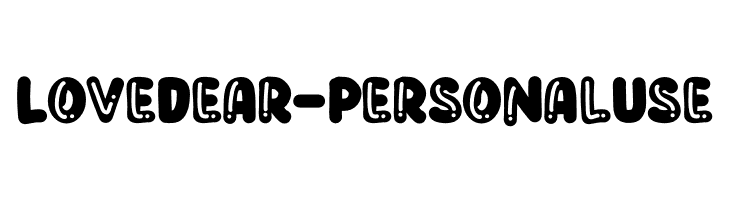
A bold, geometric font with rounded edges and a modern, playful style.
A bold, condensed, and italic font with a modern, dynamic style.
( Fonts by Uddi Uddi )
A bold, gothic-inspired font with sharp, angular edges and dramatic flair.